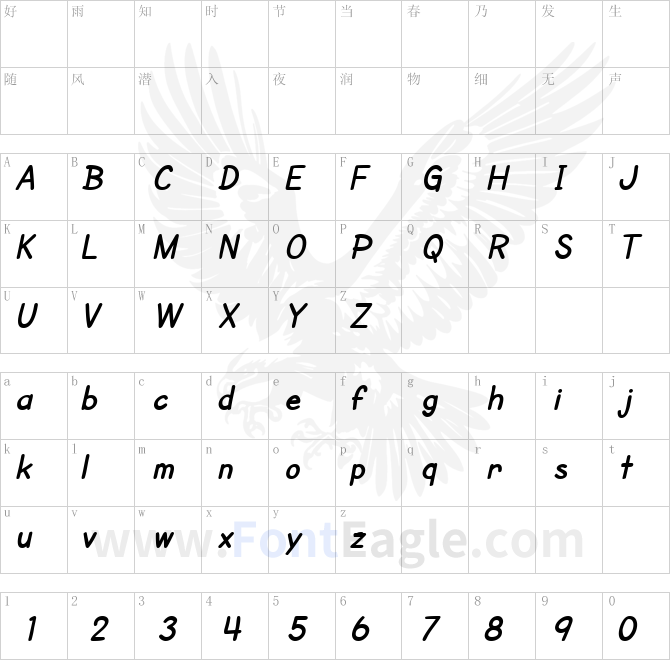
- Font name:SF Cartoonist Hand
- Font Subfamily ID:ShyFontsTypeFoundry: SF Cartoonist Hand Bold Italic: 2000
- Font Full Name:SF Cartoonist Hand Bold Italic
- Postscript:SFCartoonistHand-BoldItalic